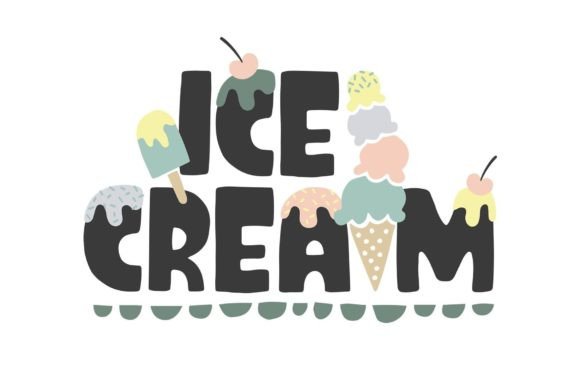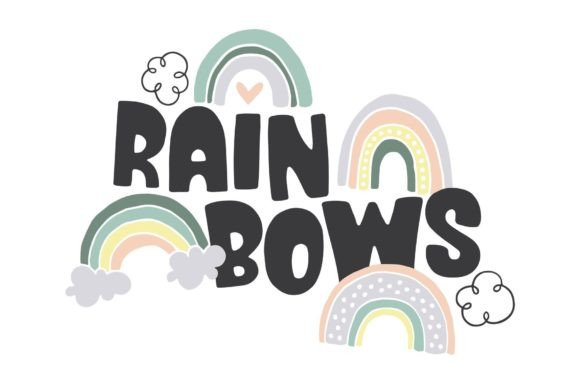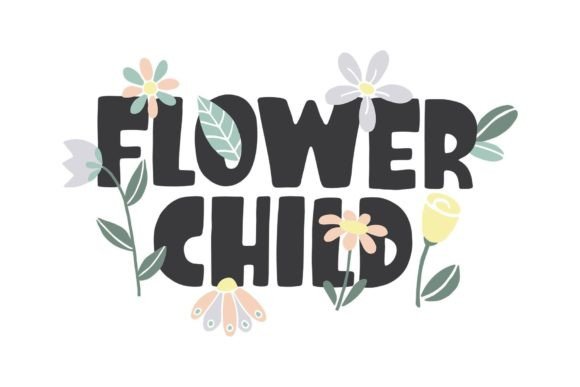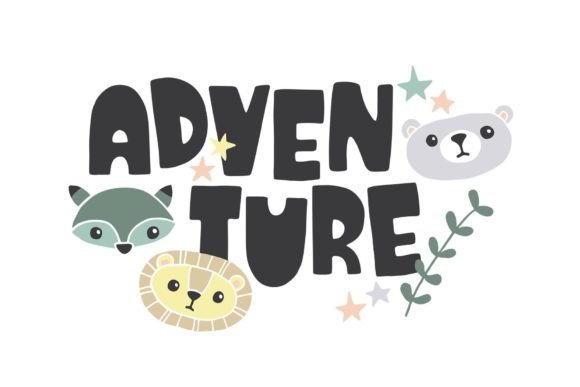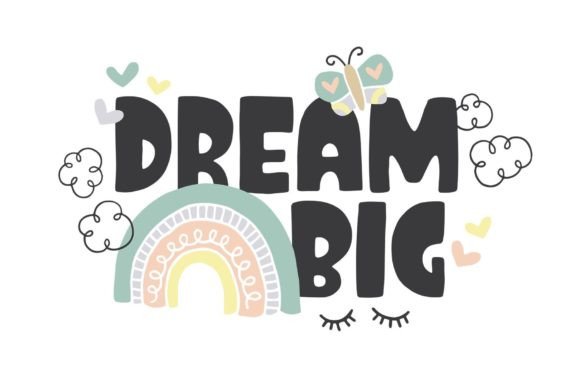
Introduction to Rain or Shine Font
Remember the rush of excitement when you stumble upon the perfect design resource for your creative project? It’s like a breath of fresh air, isn’t it? That’s exactly what happens when you come across the Rain or Shine Font – a delightful all-caps display font that’s sure to brighten up your day, rain or shine!
This free download is more than just a font; it’s a treasure trove of creative possibilities. With its bold yet friendly design, it’s perfect for adding a playful touch to your typographic prints, invitations, or even T-shirts. The best part? The Rain or Shine Font comes with fun and creative doodles to complement your design, making it a high-quality resource for designers of all levels.
Whether you’re a seasoned pro or a design enthusiast, the Rain or Shine Font is a valuable addition to your design arsenal. Its transparent background and high-quality design make it easy to work with, and the free download option means you can get started right away. So, what are you waiting for? Let the Rain or Shine Font shine in your next creative project!
Key Features of Rain or Shine Font
- High-quality design resource ideal for creative projects, offering a unique and eye-catching aesthetic.
- Includes a range of characters, including uppercase and lowercase letters, numbers, and special symbols.
- Designed with a high resolution, suitable for use in various mediums, including print and digital applications.
- Perfect for designers looking for a free, high-quality design resource to elevate their creative project.
Honest Review: Rain or Shine Font
I recently stumbled upon the Rain or Shine Font, and I must say it’s a great addition to any designer’s toolkit. The font is perfect for a creative project that requires a touch of playfulness and elegance.
- ✨ The font is highly legible, making it suitable for both body text and headlines.
- ✨ It comes in a variety of styles, from casual to formal, giving you plenty of options for your design project.
- ✨ The transparent background feature allows for easy layering and manipulation in your design.
- ⚠️ The font may not be suitable for projects that require a high level of sophistication or complexity.
- ⚠️ Some users may find the font’s playful nature too casual for certain design projects.
Overall, I’m impressed with the Rain or Shine Font. It’s a high-quality design resource that’s perfect for designers looking for a versatile and free font. While it may have some limitations, I think it’s a great addition to any design library.
Tips for Getting the Most Out of Rain or Shine Font
Use the Rain or Shine Font as a design resource for your creative project, experimenting with different font styles and sizes to achieve a unique look. Consider combining the font with other high-quality design elements to create a visually appealing design.
The Rain or Shine Font is ideal for use in various creative projects, including wedding invitations, social media graphics, and business cards. Its transparent background makes it easy to layer over other design elements, while its high-quality design ensures a professional look.